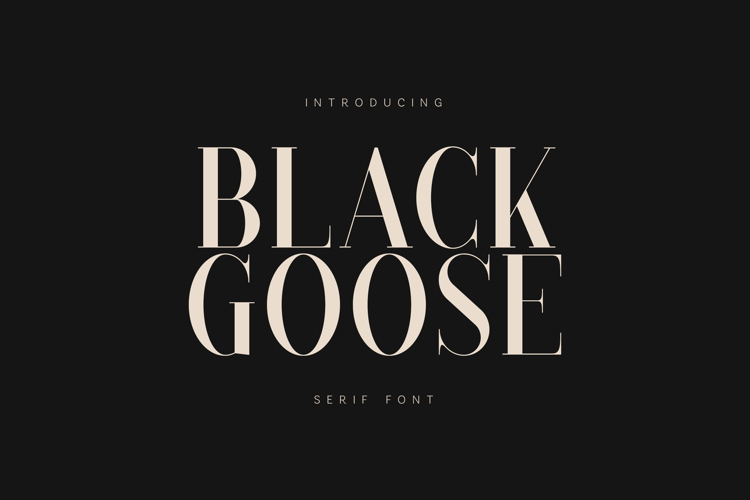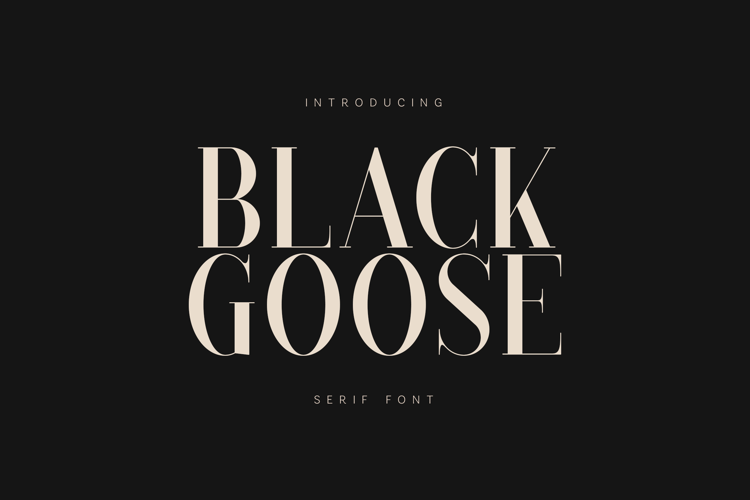
Black Goose is a refined modern serif font designed for timeless elegance and sophisticated branding. With its graceful contrast, smooth curves, and classic proportions, this font is perfect for luxury logos, fashion editorials, magazines, wedding invitations, and high-end branding projects.
Black Goose delivers a professional and stylish look while remaining highly readable across print and digital media. The font includes uppercase, lowercase, numerals, punctuation, symbols, and multilingual support, making it versatile for global design needs.